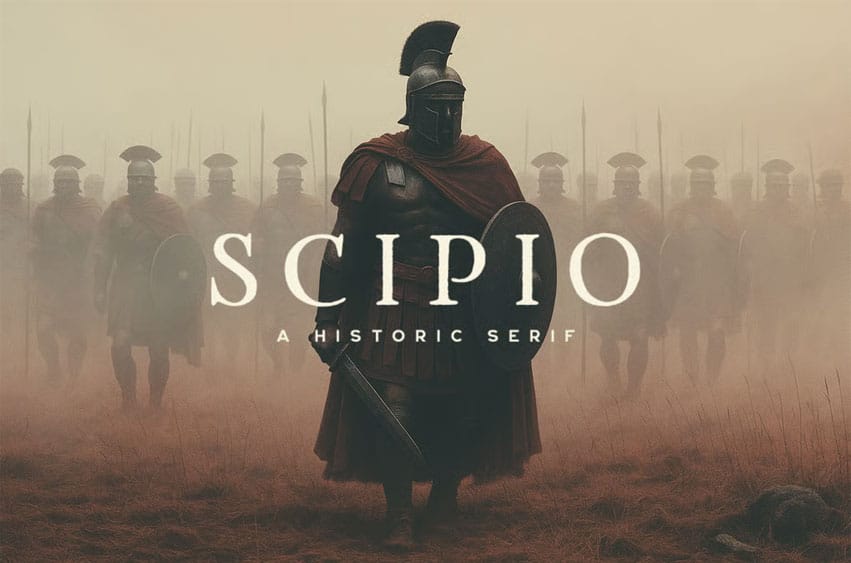
Scipio Font is a Roman inspired serif display font with alternates you can toggle via Caps Lock.
Every letter has a unique and beautiful touch, which will make your design come alive!